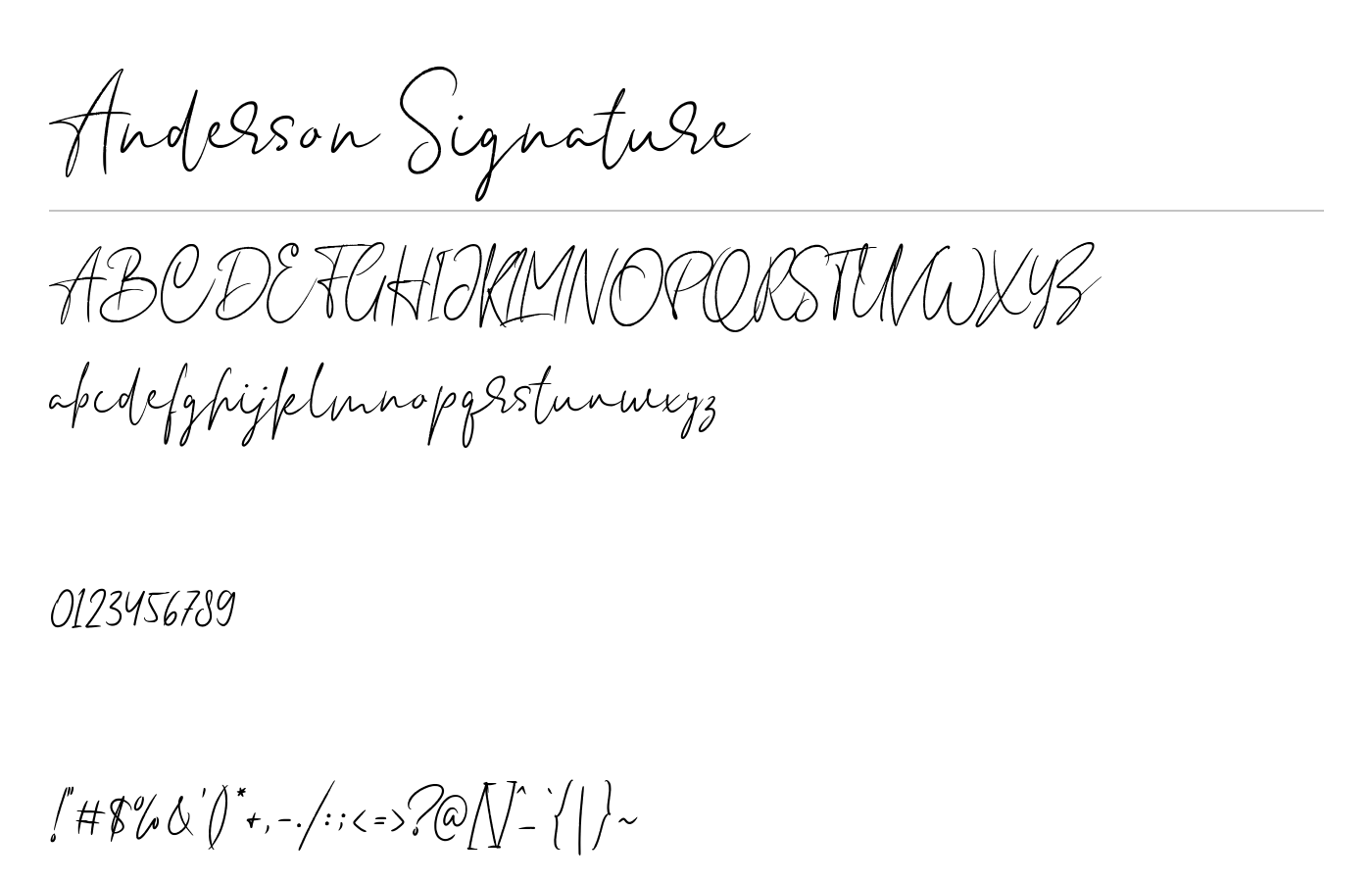
Anderson Signature is a delicate, handwritten script font that mimics elegant, natural handwriting with thin, flowing strokes and a light weight. Its tall, narrow letterforms and smooth curves create a refined, personal feel, making it ideal for branding, invitations, and stylish editorial projects that seek a touch of sophistication and warmth. This font works beautifully in contexts where a handwritten, graceful aesthetic is desired, such as fashion logos, luxury packaging, and social media graphics.
Anderson Signature Font
About Anderson Signature Font